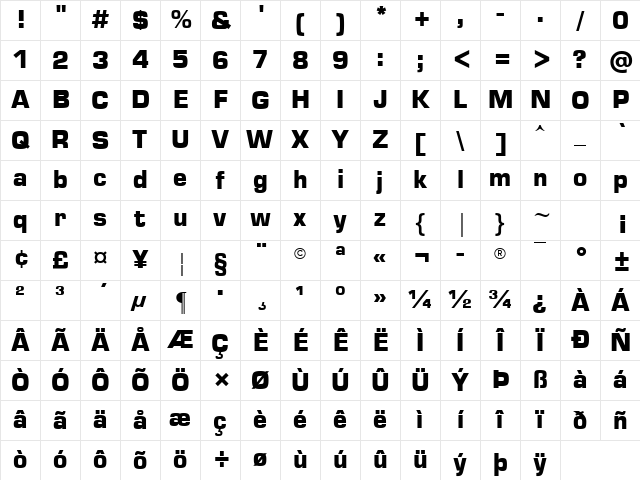
Metrostyle Bold Free Font
Metrostyle Bold
Complete Metrostyle Bold glyph index. Displaying only characters natively supported by Metrostyle Bold font.
Design Context for Metrostyle
Metrostyle is a composed and adaptable typeface that performs quietly and consistently across a wide range of design contexts. Its bold stroke weight gives it real presence on the page.